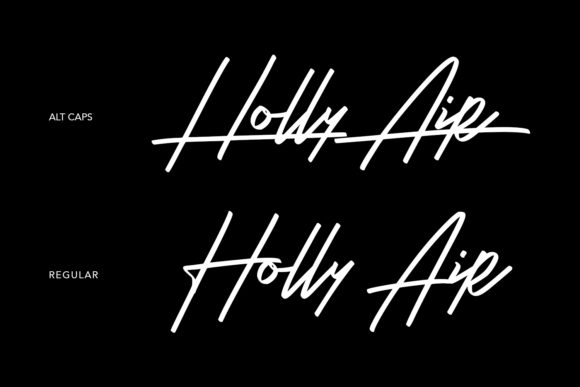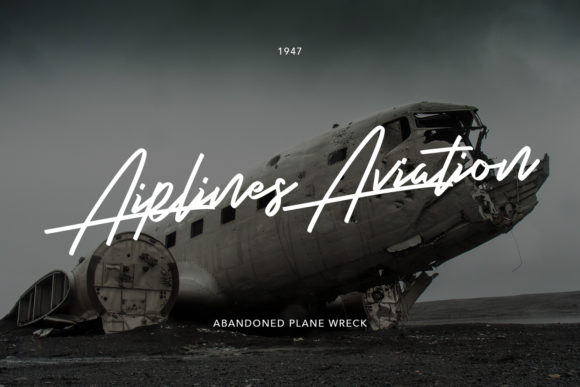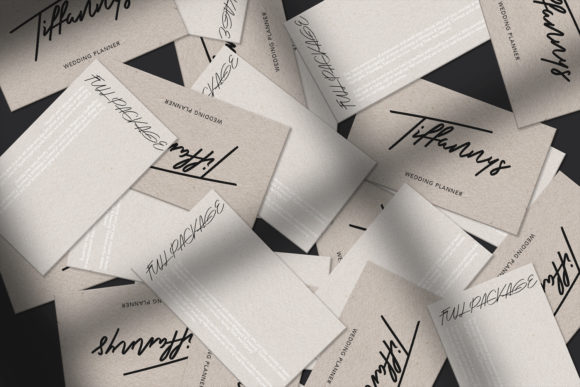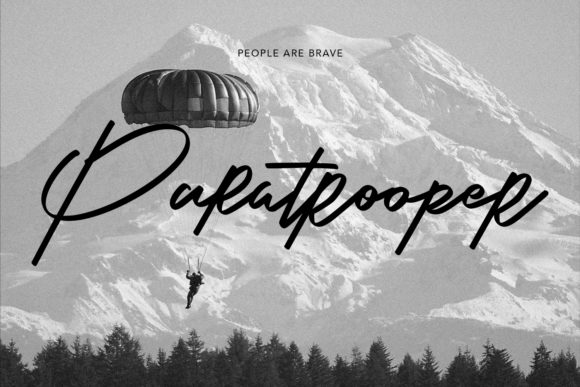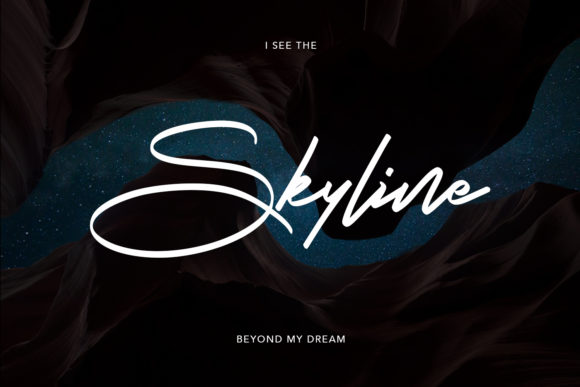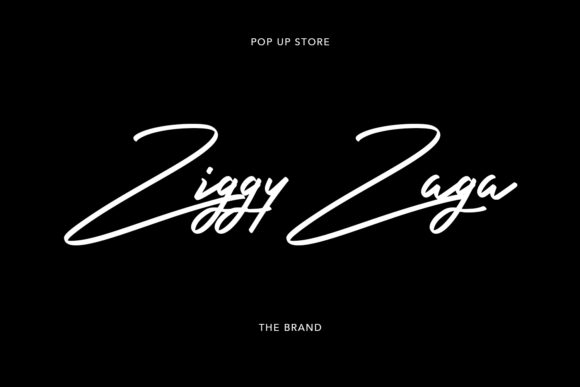
Introduction to Ryland Heights Font Font
Fonts play a crucial role in design, and the Ryland Heights Font font is a typeface that brings both character and versatility to any project. Whether you’re working on a branding project, a website, or a print design, the Ryland Heights Font font offers a unique style that can elevate your work.
Ryland Heights is a thin and stylish Script font.
This font will add a high-class, luxurious feeling to wedding cards, websites, branding, and more Itβs highly recommended to turn your Opentype features (Ligature) on while using the script font.
Key Features of Ryland Heights Font Font
Why Choose Ryland Heights Font Font?
The Ryland Heights Font font is more than just a typeface β it’s a design tool that helps you communicate your message with style and clarity. Its unique character set and versatile design make it suitable for a wide range of applications, from elegant invitations to bold headlines.
With its carefully crafted letterforms and balanced proportions, the Ryland Heights Font font ensures readability and visual appeal across all mediums.
What makes Ryland Heights Font font special?
The Ryland Heights Font font stands out with its unique design, exceptional readability, and versatility across various design applications.